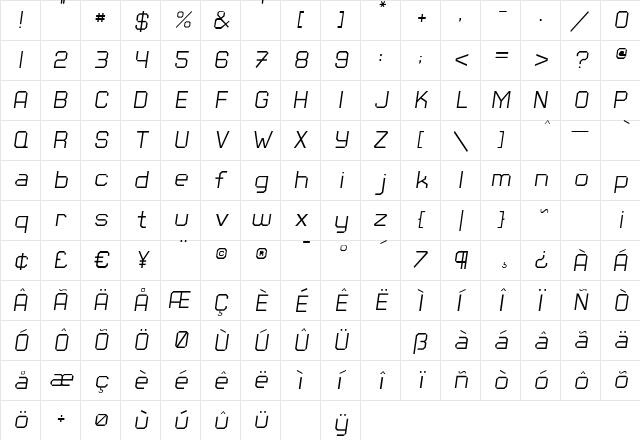
Square45 ThinItalic Font Preview
Design Context for Square45 Typeface
Square45 offers clean, dependable letterforms without strong stylistic allegiance, making it a practical choice for designers who need flexibility. Its italic angle brings a sense of urgency and motion to the letterforms. Its slender proportions lend an understated elegance to any composition.
Pro Tip: Try Square45 for annotation and caption copy alongside an upright companion — the contrast in angle creates a dynamic but ordered typographic system.